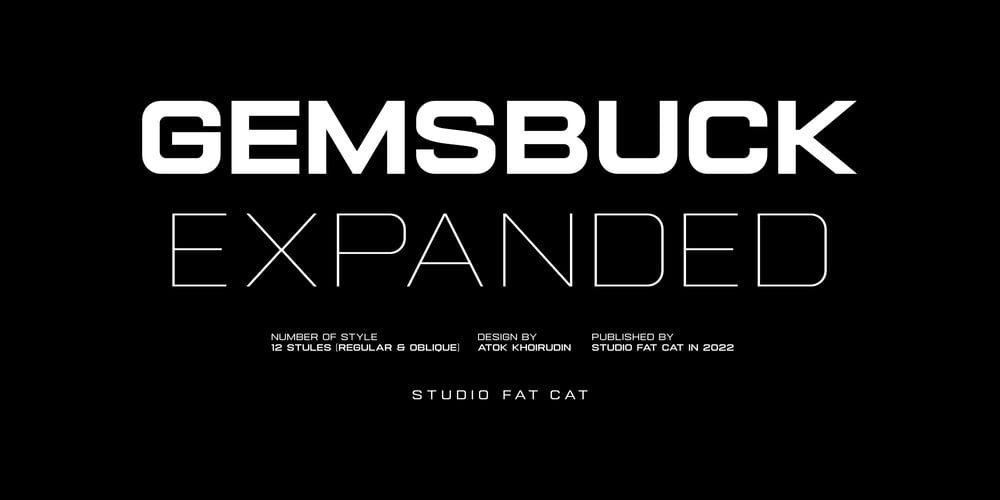
Gemsbuck 01 Font Family was designed by Atok Khoirudin and published by Studio Fat Cat. Gemsbuck 01 contains 12 styles and family package options. Gemsbuck 01 is a typeface that was designed by Atok Khoiruding in 2022. It is a sans-serif font known for its bold and geometric design. Gemsbuck 01 features clean lines and a modern, industrial aesthetic, making it popular for various applications, including posters, headlines, and logos.The font family includes several weights and styles, ranging from light to bold, allowing for versatile use in different design contexts. Gemsbuck 01 has been widely used in print, advertising, and digital media due to its distinctive and impactful appearance.